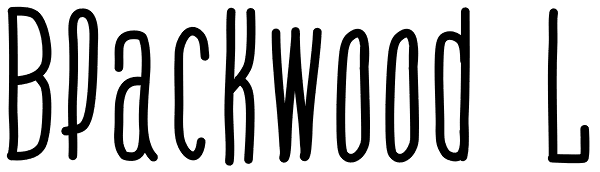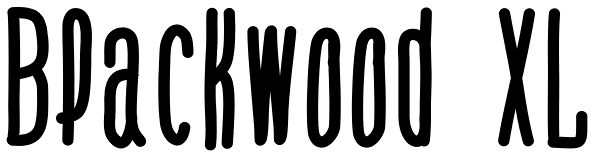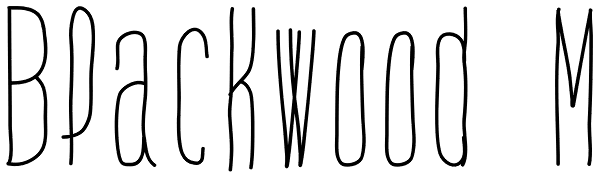
Blackwood
Typography made with love by David. Simple hand drawn type, easy to use, with four weights.
Blackwood L
Blackwood L Font
Blackwood XL
Blackwood XL Font
Blackwood M
Blackwood M Font